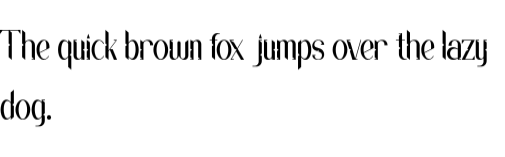
Introducing Flowzora Sans Serif Unique Font: Elevate Your Designs with Modern Elegance
In the world of typography, fonts play a crucial role in conveying messages, expressing creativity, and establishing brand identities. With the ever-evolving landscape of design, it’s essential to stay ahead of the curve with fresh and innovative typefaces. One such remarkable font that has caught the attention of designers and typography enthusiasts is Flowzora. This article will delve into the world of Flowzora, exploring its unique features, applications, and benefits, as well as provide insights into its PUA encoding and usage.
What is Flowzora Font?
Flowzora is a refined and modern sans-serif typeface that effortlessly combines minimalism with creativity. Its distinctive curves and smooth letterforms make it an ideal choice for designers seeking elegance in simplicity. Flowzora’s clean and stylish look is perfect for a wide range of applications, including branding, editorial layouts, web design, and sophisticated print materials.
Design Applications of Flowzora Font
Flowzora’s versatility and unique character make it a go-to font for various design projects. Some of its notable applications include:
- Branding: Flowzora’s elegant and modern design makes it perfect for logos, trademarks, and brand identities.
- Editorial Layouts: Its clean and readable letterforms are ideal for magazines, newspapers, and digital publications.
- Web Design: Flowzora’s responsiveness and legibility make it suitable for websites, blogs, and digital platforms.
- Print Materials: Its sophisticated design is perfect for business cards, brochures, posters, and other high-end print materials.
Benefits of Using Flowzora Font
Flowzora offers several benefits that make it a preferred choice among designers:
- Elegance and Sophistication: Flowzora’s modern design adds a touch of elegance and sophistication to any project.
- Versatility: Its clean and stylish look makes it suitable for a wide range of applications.
- Legibility: Flowzora’s smooth letterforms ensure excellent readability, even at small font sizes.
- Uniqueness: Its distinctive curves and character set make it stand out from other sans-serif fonts.
What is PUA Encoding?
Flowzora font is PUA (Private Use Area) encoded, which means that it contains a range of glyphs and swashes that can be accessed easily. PUA encoding allows designers to access these additional characters without the need for complex software or technical expertise.
The benefits of PUA encoding include:
- Ease of Use: Designers can access all the glyphs and swashes with ease, without requiring extensive technical knowledge.
- Increased Creativity: The additional characters and swashes provide more creative options for designers.
- Streamlined Workflow: PUA encoding saves time and effort, allowing designers to focus on the creative process.
Tips and Tricks for Using Flowzora Font
To get the most out of Flowzora font, here are some tips and tricks:
- Experiment with Font Sizes: Flowzora’s legibility and smooth letterforms make it suitable for a wide range of font sizes.
- Play with Glyphs and Swashes: Take advantage of Flowzora’s PUA encoding to add creative touches to your designs.
- Combine with Other Fonts: Flowzora pairs well with other sans-serif and serif fonts, making it ideal for complex designs.
Flowzora Sans Serif Unique Font is a refined and modern typeface that effortlessly combines minimalism with creativity. Its distinctive curves, smooth letterforms, and PUA encoding make it an ideal choice for designers seeking elegance and sophistication. With its versatility, legibility, and unique character, Flowzora is perfect for a wide range of design applications. Elevate your designs with Flowzora, where modernity meets artistic expression.